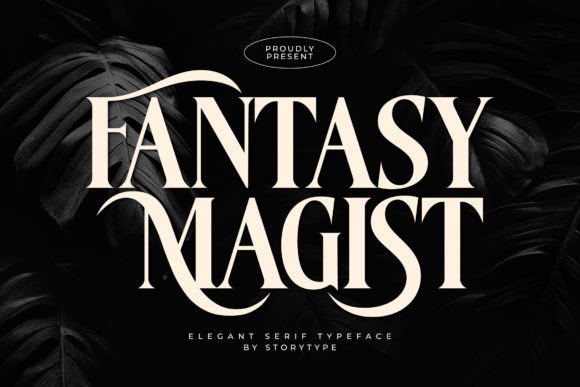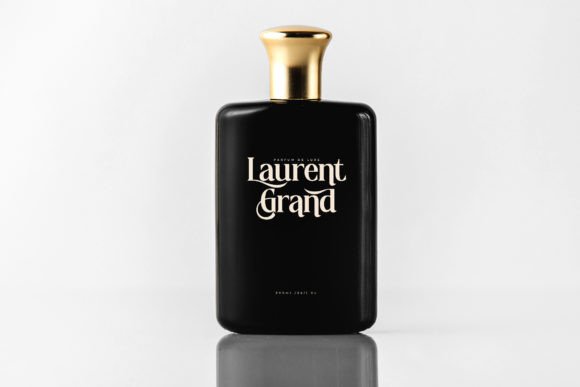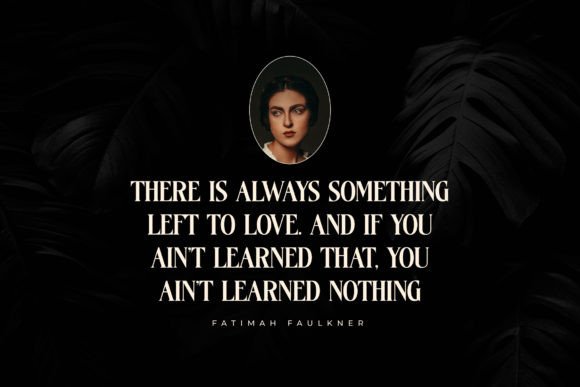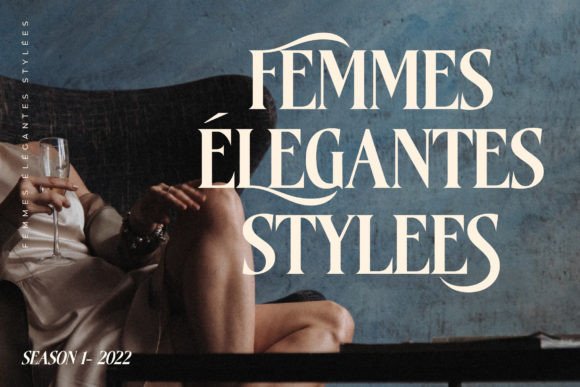
Fantasy Magist Font: Elegant Serif for Logo Design & Branding
About the Fantasy Magist Font
The wait is over! The incredible Fantasy Magist Font is now available for your design toolkit. Fantasy Magist is a modern and stylish serif font. Fall in love with its incredibly versatile style and use it to create gorgeous wedding invitations, beautiful stationary art, eye-catching social media posts, and much more!
Fantasy Magist’s elegant serifs and stylish forms make it ideal for headlines, logos, short text blocks on marketing materials, and high-end packaging. Its refined aesthetic also suits wedding invitations and stationery. However, its decorative nature makes it less suitable for body text or UI elements where readability is paramount; long paragraphs will strain the reader.
Consider pairing Fantasy Magist with a clean sans-serif like Montserrat for a balanced contrast, or a playful script font such as Pacifico for a more whimsical feel. For a more modern, sophisticated look, a geometric sans-serif like Futura would work well.
The overall personality of Fantasy Magist is sophisticated yet approachable, lending itself to brands focused on luxury, craftsmanship, or creativity. Its refined elegance avoids being overly stuffy, creating a sense of timeless style.